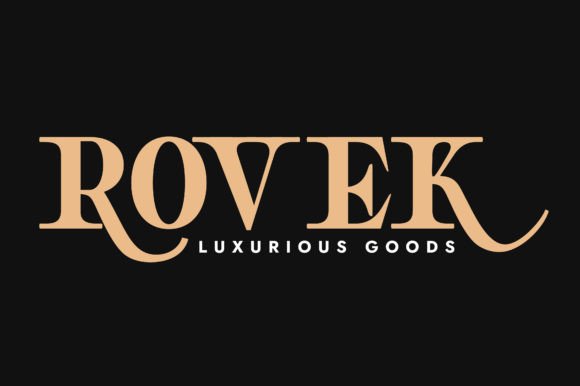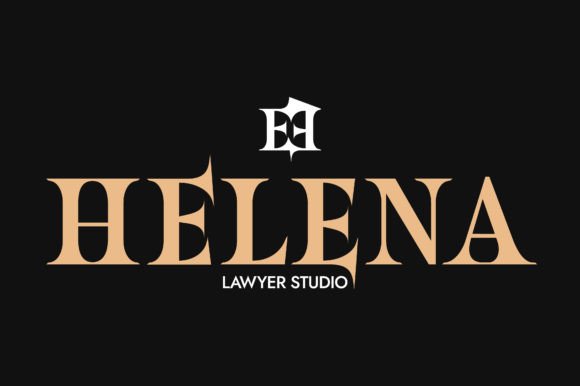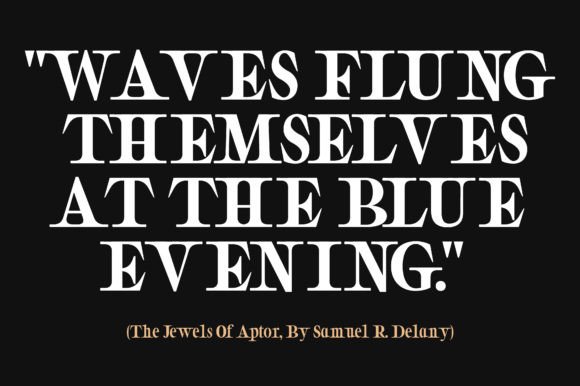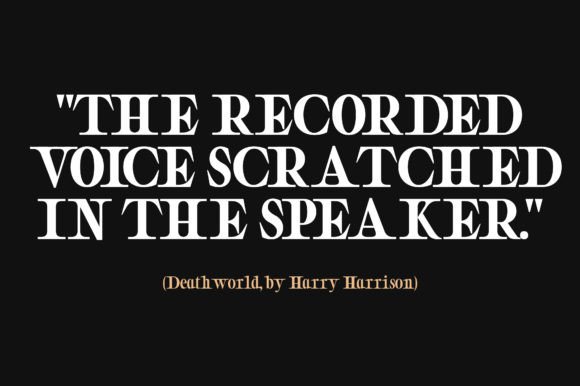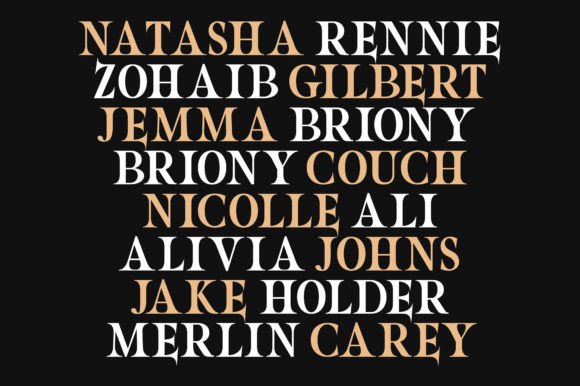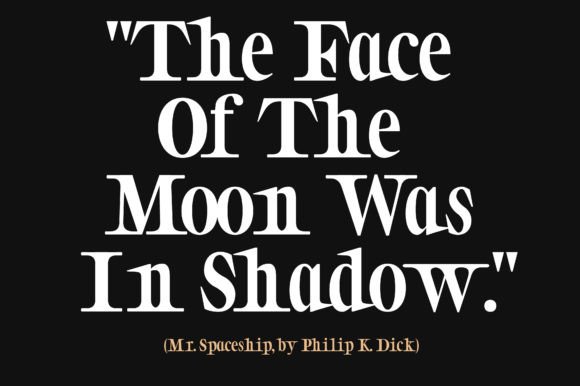
Introducing Ellie Font: Elevate Your Designs with Elegance and Sophistication
In the world of typography, a font can make or break a design. It’s the perfect blend of style, elegance, and readability that can elevate a project from ordinary to extraordinary. If you’re a designer or crafter looking for a typeface that exudes luxury and sophistication, look no further than Ellie Font. This trendy, elegant, and stylish serif typeface is perfect for a wide range of design applications, from packaging design and posters to cosmetics, social posts, logos, and more.
The Versatility of Ellie Font
One of the standout features of Ellie Font is its versatility. Its classic serif design makes it suitable for a variety of contexts and design themes. Whether you’re working on a high-end fashion brand, a beauty product, or a sophisticated event invitation, Ellie Font is the perfect choice. Its elegant lines and refined aesthetic will add a touch of luxury to any design, making it perfect for projects that require a high level of sophistication.
Key Features of Ellie Font
- Trendy and Elegant Design: Ellie Font boasts a modern yet classic design that’s perfect for designers who want to create stunning visuals.
- Serif Typeface: The serif design adds a level of sophistication and elegance to any text, making it perfect for high-end designs.
- Highly Versatile: From packaging design to social media posts, Ellie Font can be used in a wide range of design applications.
- Luxury Touch: With Ellie Font, you can add a touch of luxury to any design, making it perfect for high-end brands and products.
Why Choose Ellie Font?
With so many fonts available, why choose Ellie Font? Here are just a few reasons why designers and crafters are falling in love with this elegant typeface:
- Easy to Read: Despite its elegant design, Ellie Font is highly readable, making it perfect for body text and headlines.
- Unique and Distinctive: Ellie Font has a unique and distinctive style that will set your designs apart from the crowd.
- Time-Saving: With Ellie Font, you can create stunning designs in no time, thanks to its ease of use and versatility.
Design Applications for Ellie Font
So, what can you create with Ellie Font? The possibilities are endless! Here are just a few design applications where Ellie Font shines:
- Packaging Design: Add a touch of luxury to your product packaging with Ellie Font.
- Posters and Flyers: Create eye-catching posters and flyers with Ellie Font’s elegant design.
- Cosmetics and Beauty: Perfect for high-end beauty brands, Ellie Font adds a level of sophistication to any cosmetic design.
- Social Media Posts: Elevate your social media posts with Ellie Font’s trendy and elegant design.
- Logos and Branding: Create a lasting impression with Ellie Font’s unique and distinctive style.
In conclusion, Ellie Font is a game-changer for designers and crafters looking to elevate their designs with elegance and sophistication. Its trendy, elegant, and stylish serif design makes it perfect for a wide range of design applications. With its versatility, readability, and unique style, Ellie Font is the perfect choice for anyone looking to add a touch of luxury to their designs. So why wait? Try Ellie Font today and take your designs to the next level!